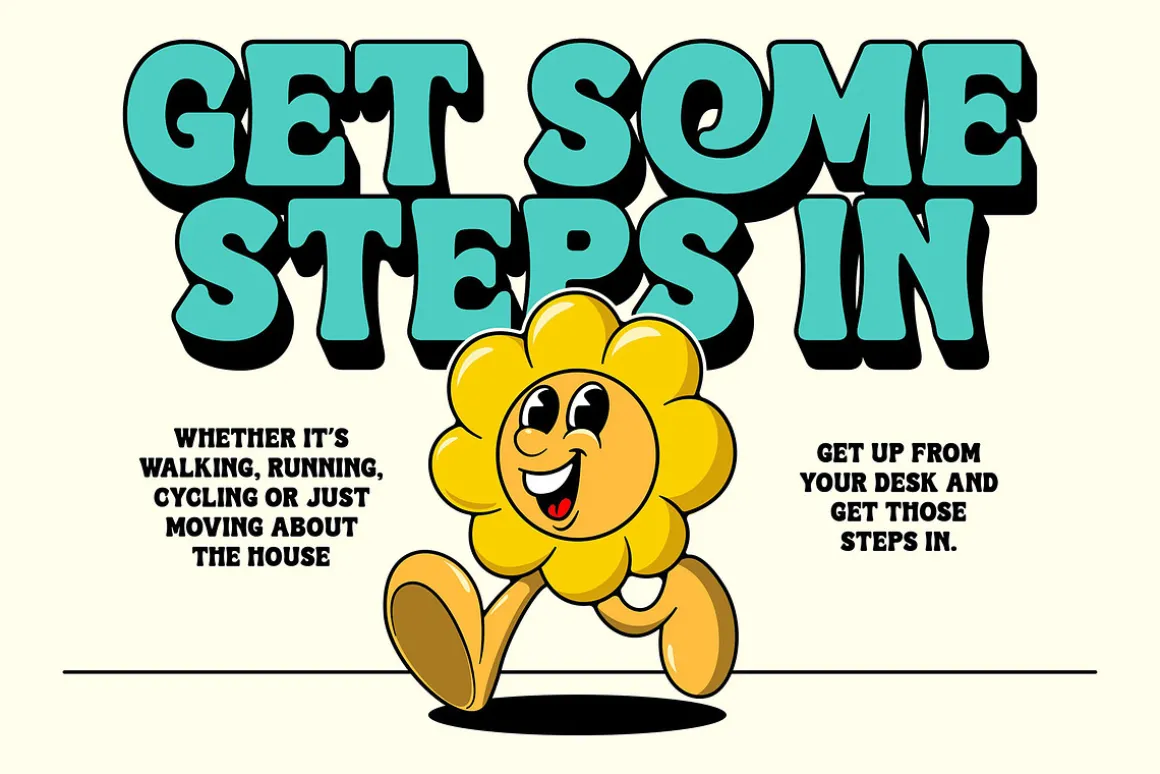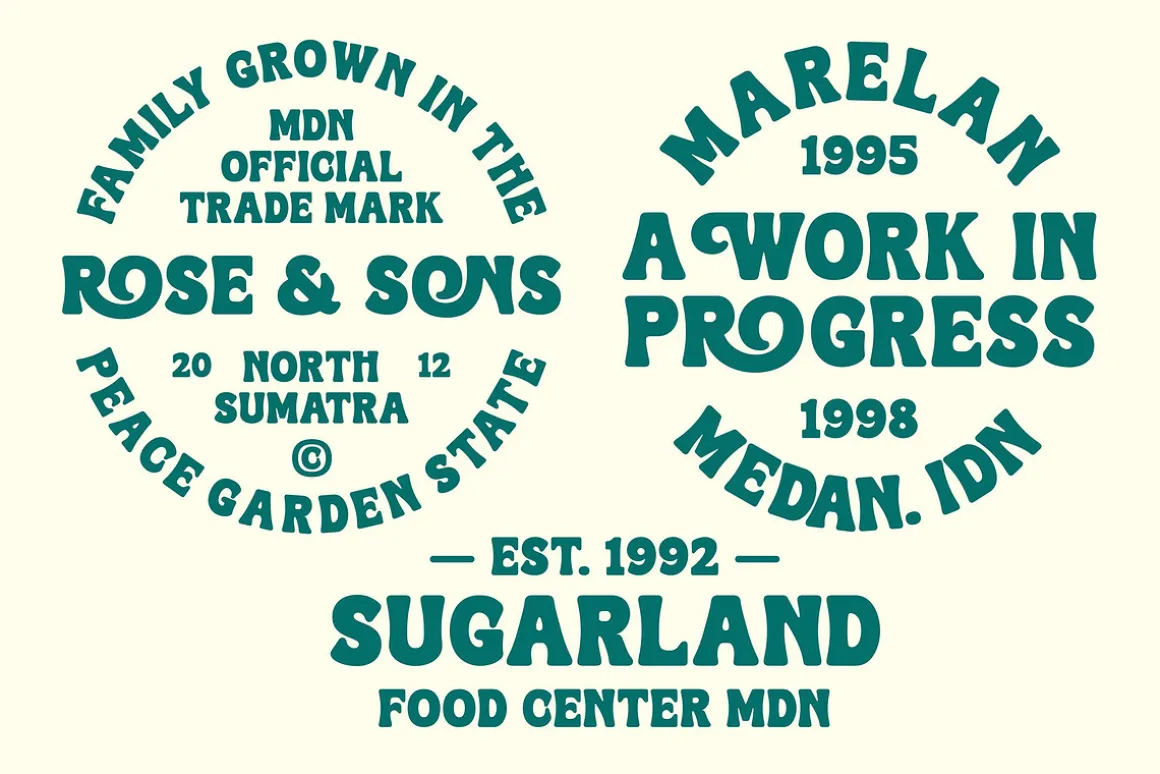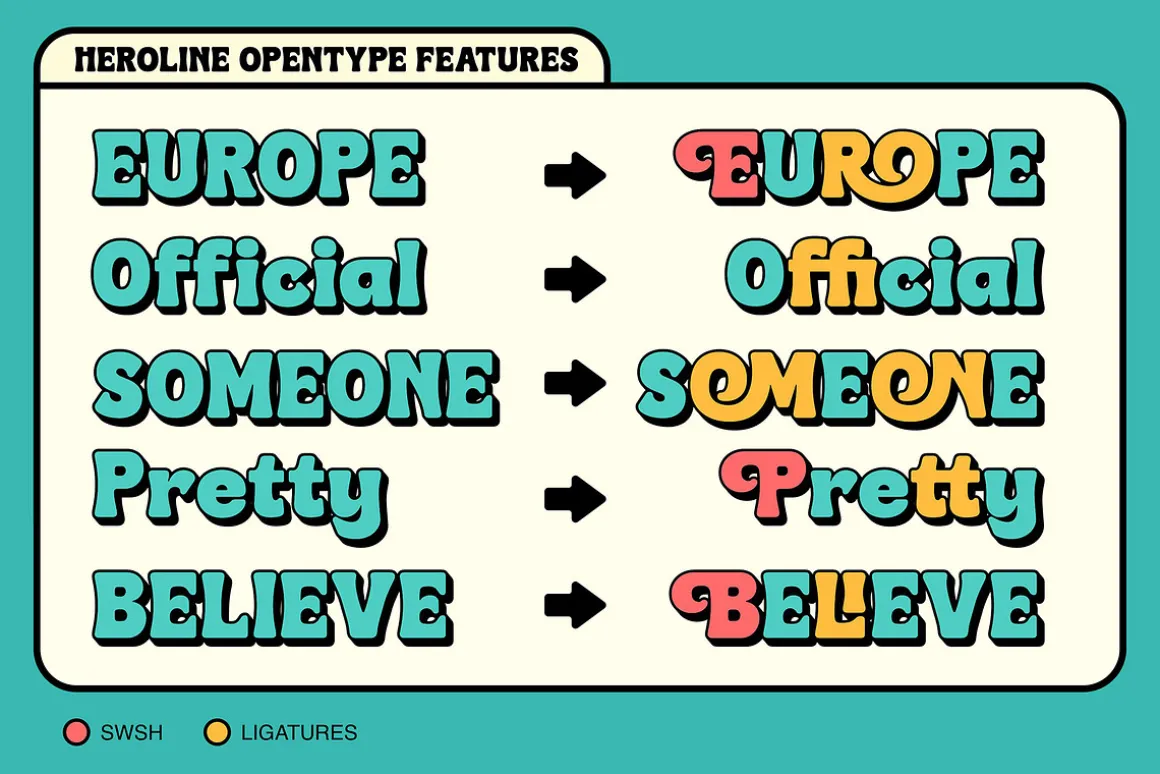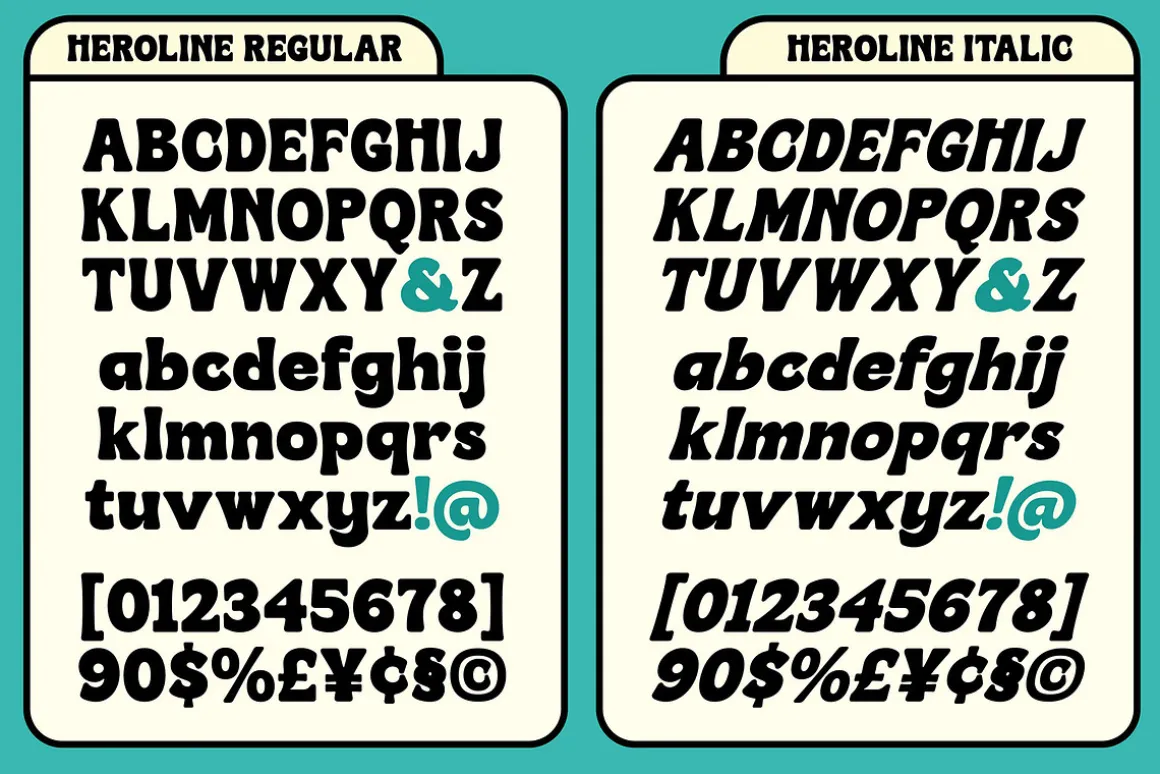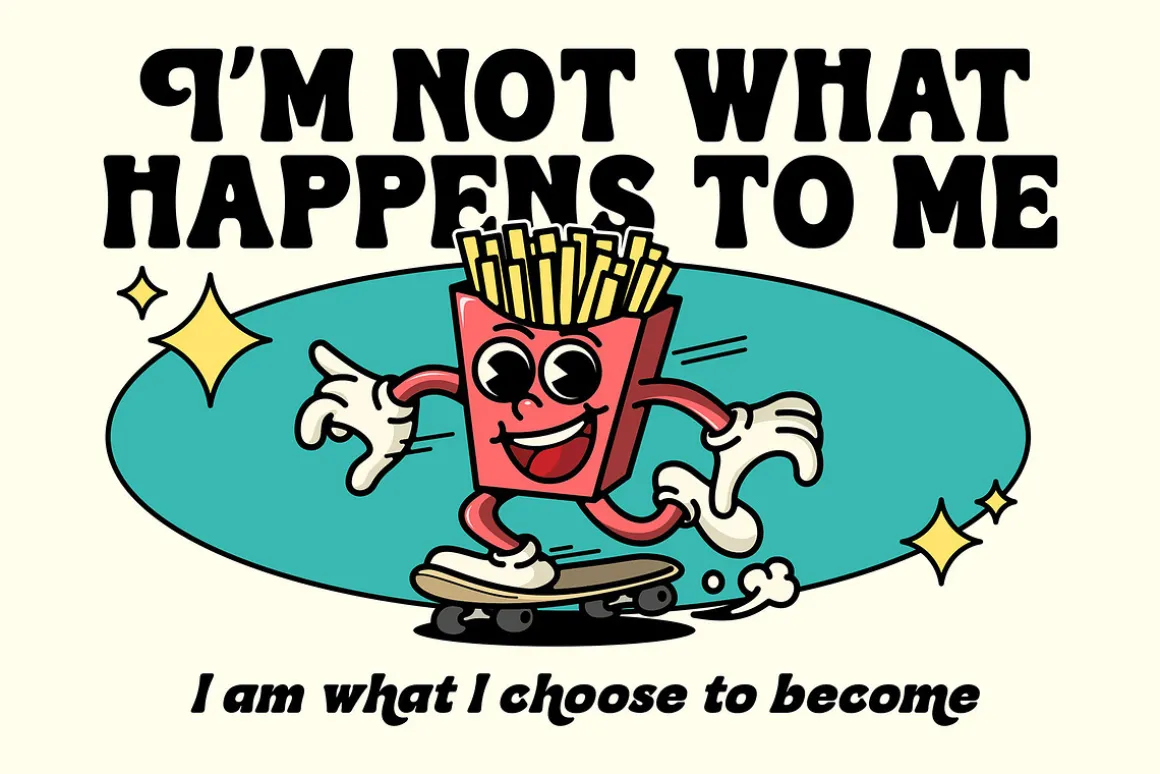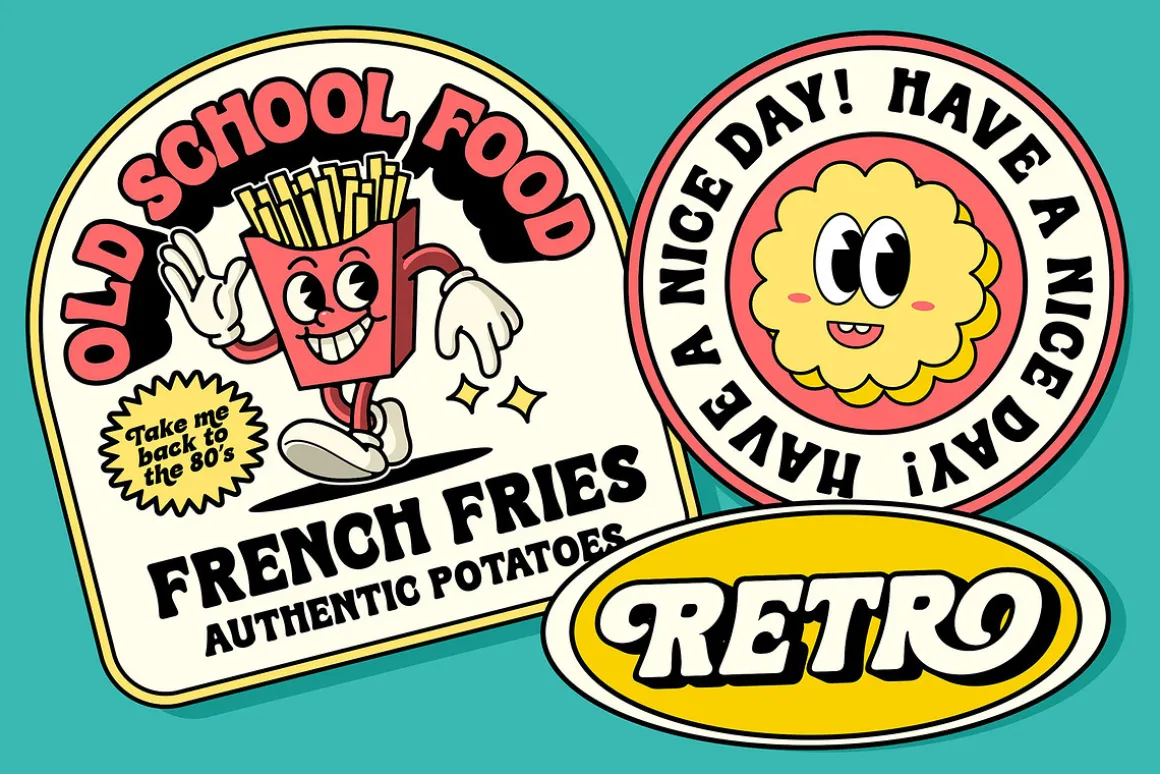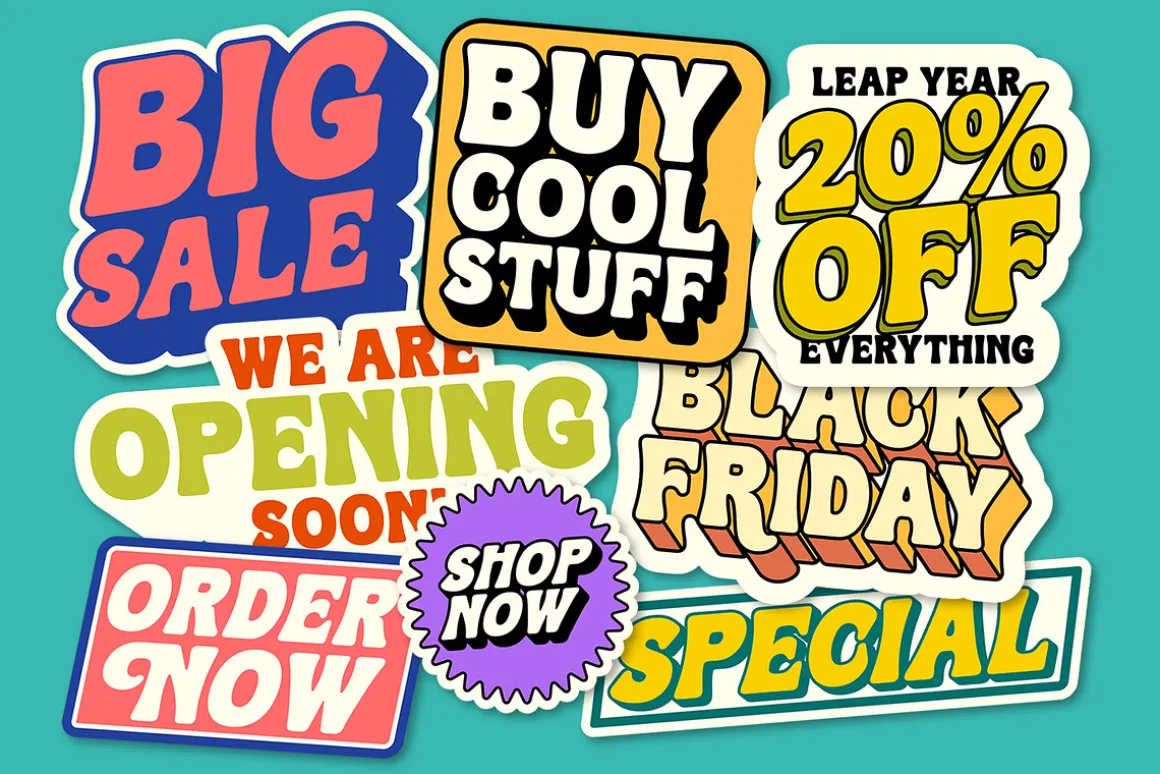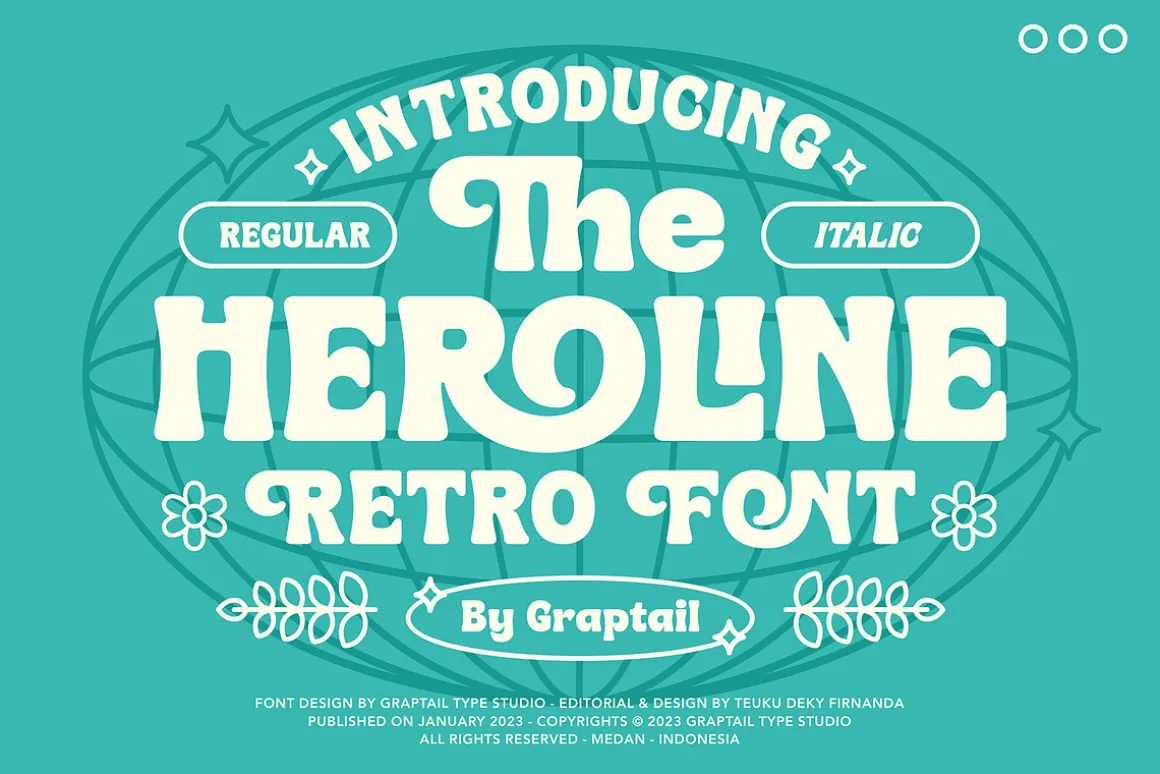
Introducing Heroline, a retro-inspired font that evokes 1950s to 90s nostalgia. This font is perfect for creating vintage-themed designs and giving it a touch of nostalgia and personality.
Heroline features a soft, solid design with curved corners and a unique letter shape. This font also includes a variety of alternative characters and ligatures, allowing you to create many different looks with the same font.
This font is perfect for creating nostalgic designs, such as retro/groovy posters, advertisements, and packaging. It’s also great for creating unique and eye-catching titles and headings.
Choose Heroline for a retro-style font that will add a touch of nostalgia and personality to your designs.